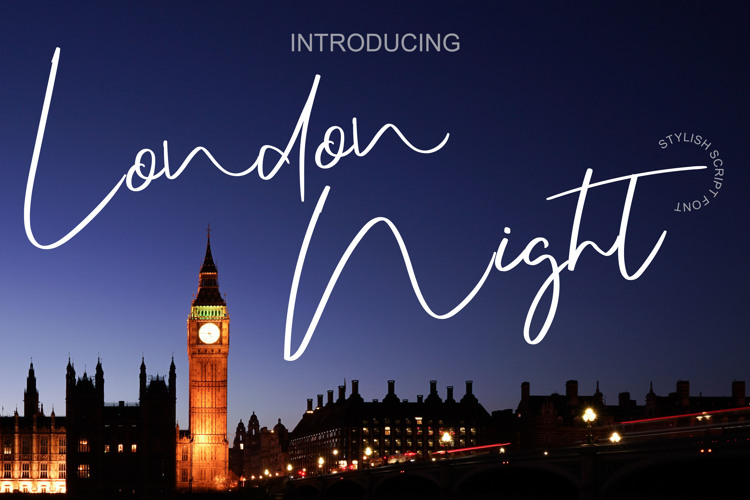
London Night Font
About London Night Font
This is a beautiful light handwritten font with a unique feel and a stunning impact. It will add a luxury spark to any design project that you wish to create!